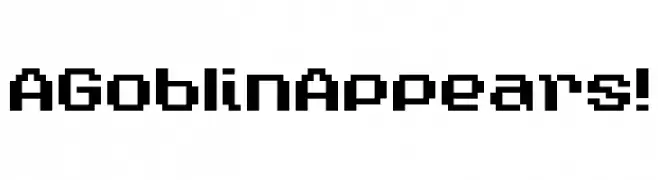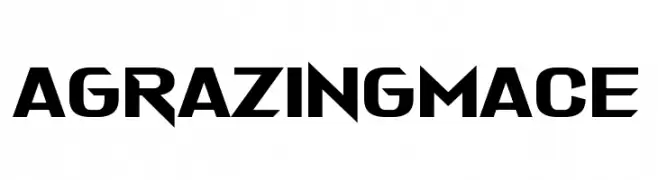
( Annie Cresta )
A playful, hand-drawn font with a whimsical and dynamic style.
( -arnaud- )
A playful, modern font with rounded, bold uppercase and smooth lowercase letters.
( -arnaud- )
A playful, bold font with rounded edges and a slightly condensed style.
( Bill Walker )
A bold, military-inspired font with angular, geometric shapes.
( Christian Munk - fontstruct.com/fontstructors/25776/cmunk )
A geometric and abstract font with bold, circular shapes and a modern aesthetic.
( Christian Munk - fontstruct.com/fontstructors/25776/cmunk )
A pixelated serif font with a retro digital style.
( Chequered Ink - chequered.ink/ )
A bold, pixelated font with a retro, digital aesthetic.
( Chequered Ink - chequered.ink/ )
A bold, geometric font with sharp angles and a futuristic style.
( Ana - www.anasfonts.com/ )
A bold, modern sans-serif font with clean, geometric lines.
( Ana - www.anasfonts.com/ )
A modern, geometric typeface with clean lines and smooth curves.